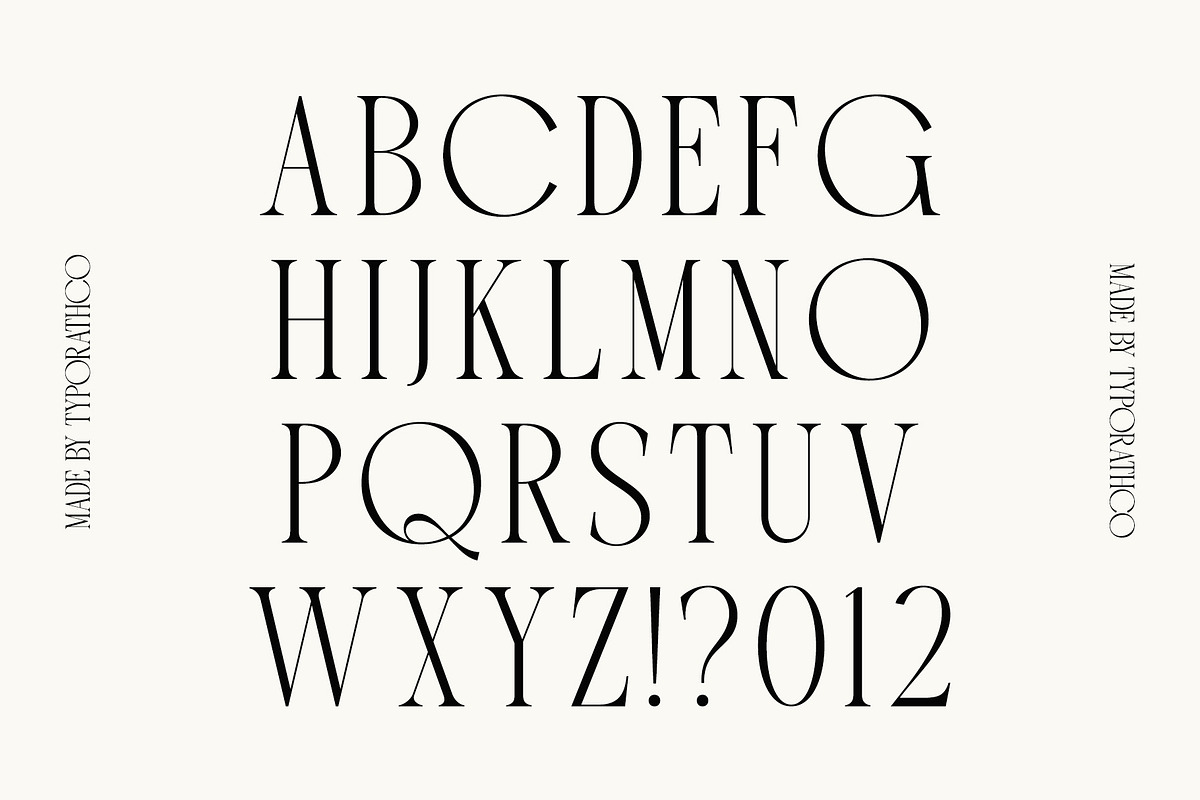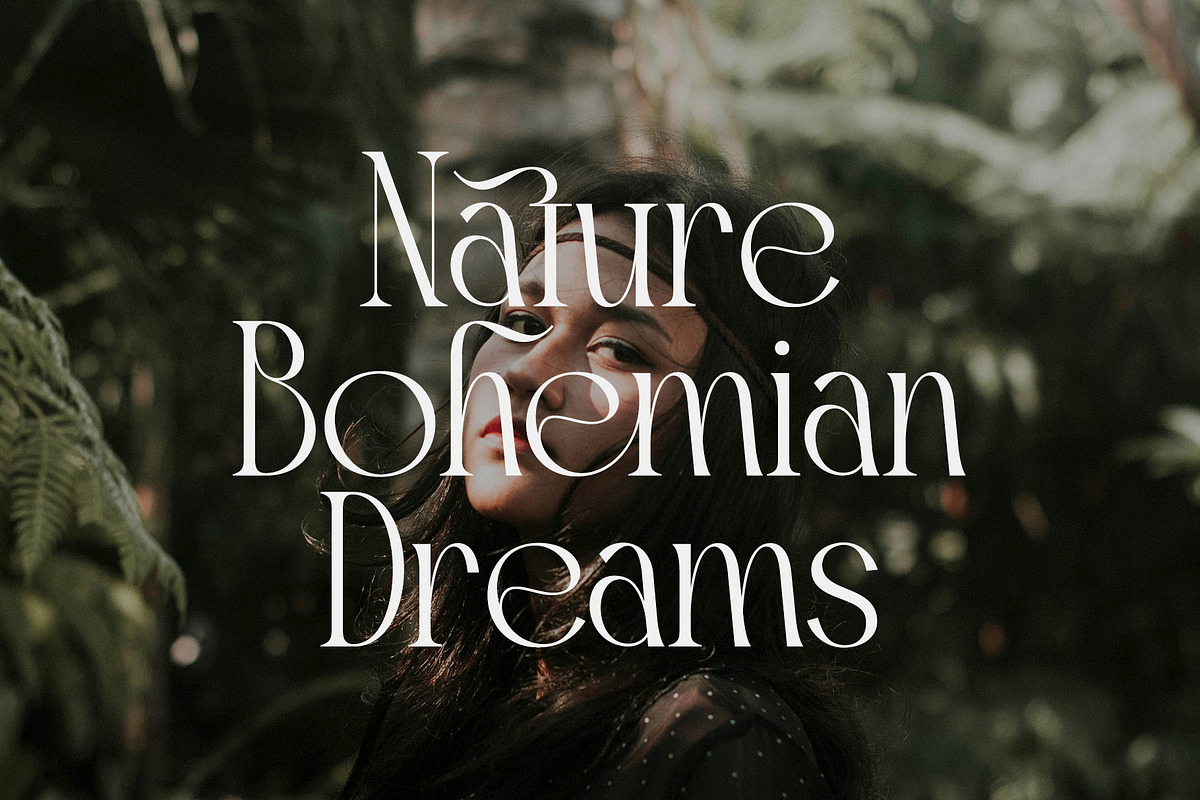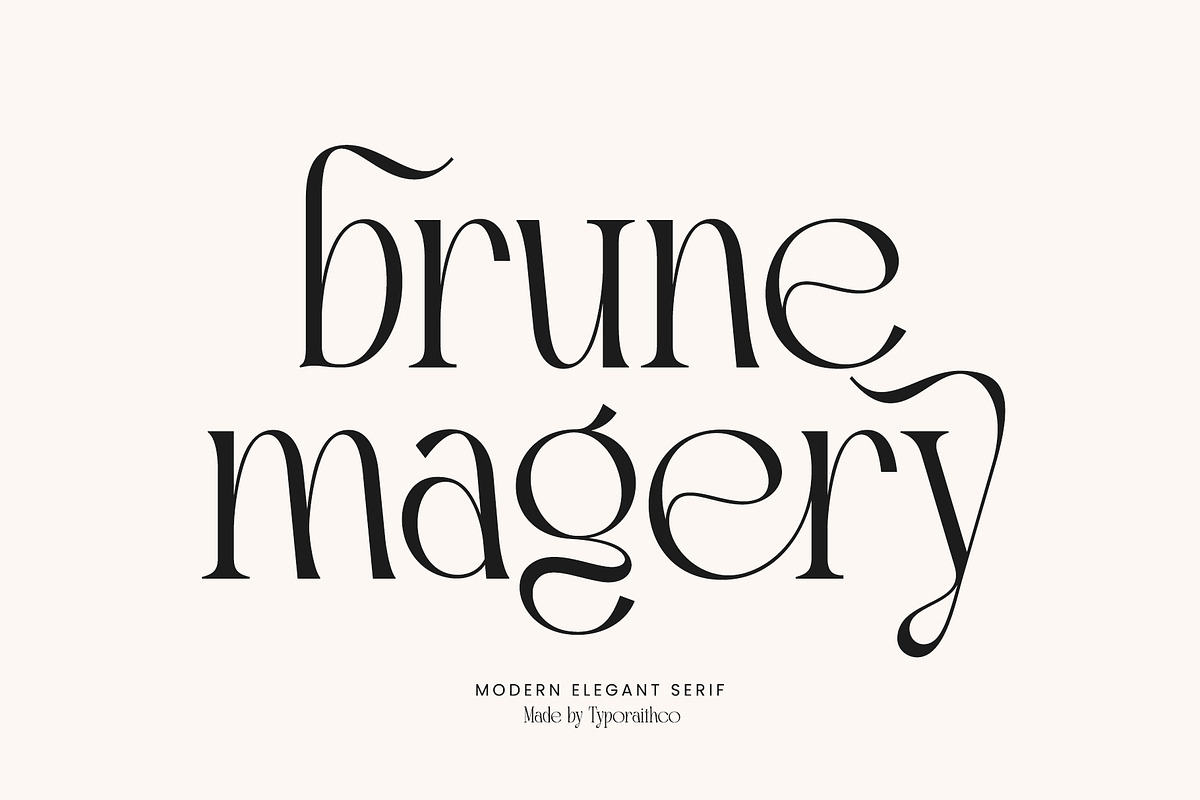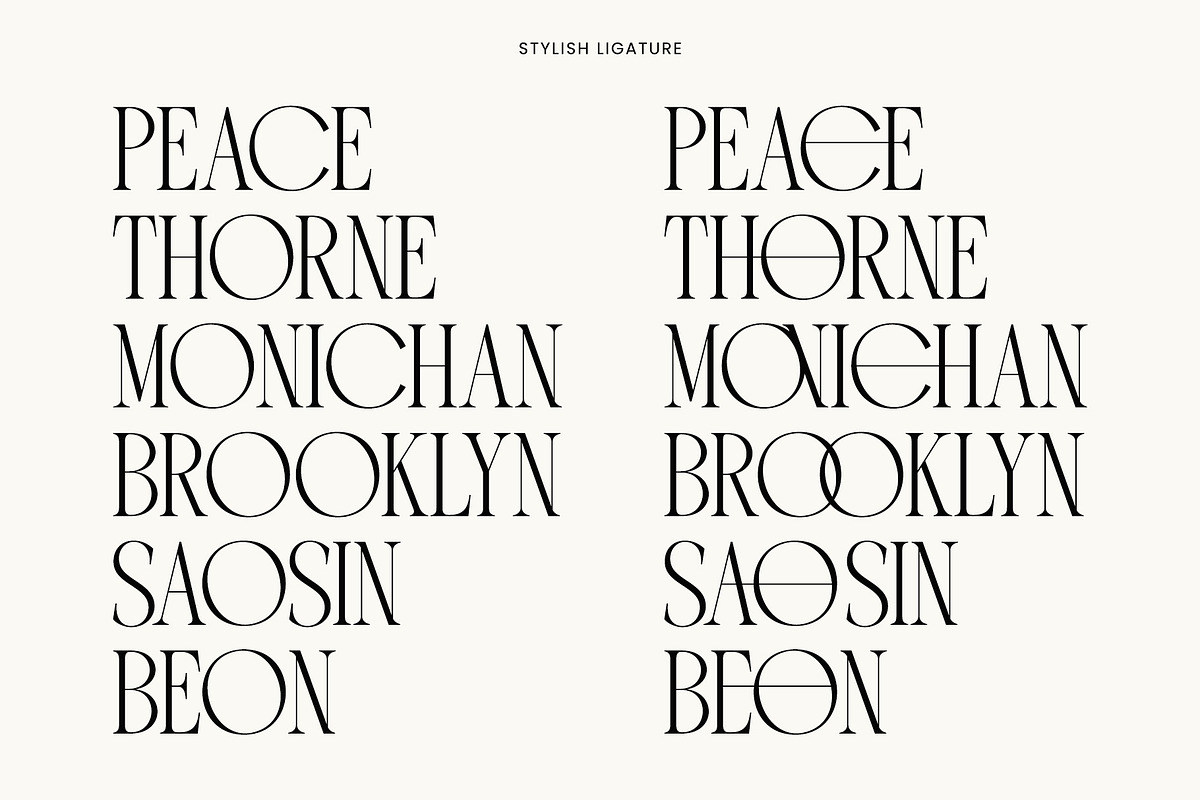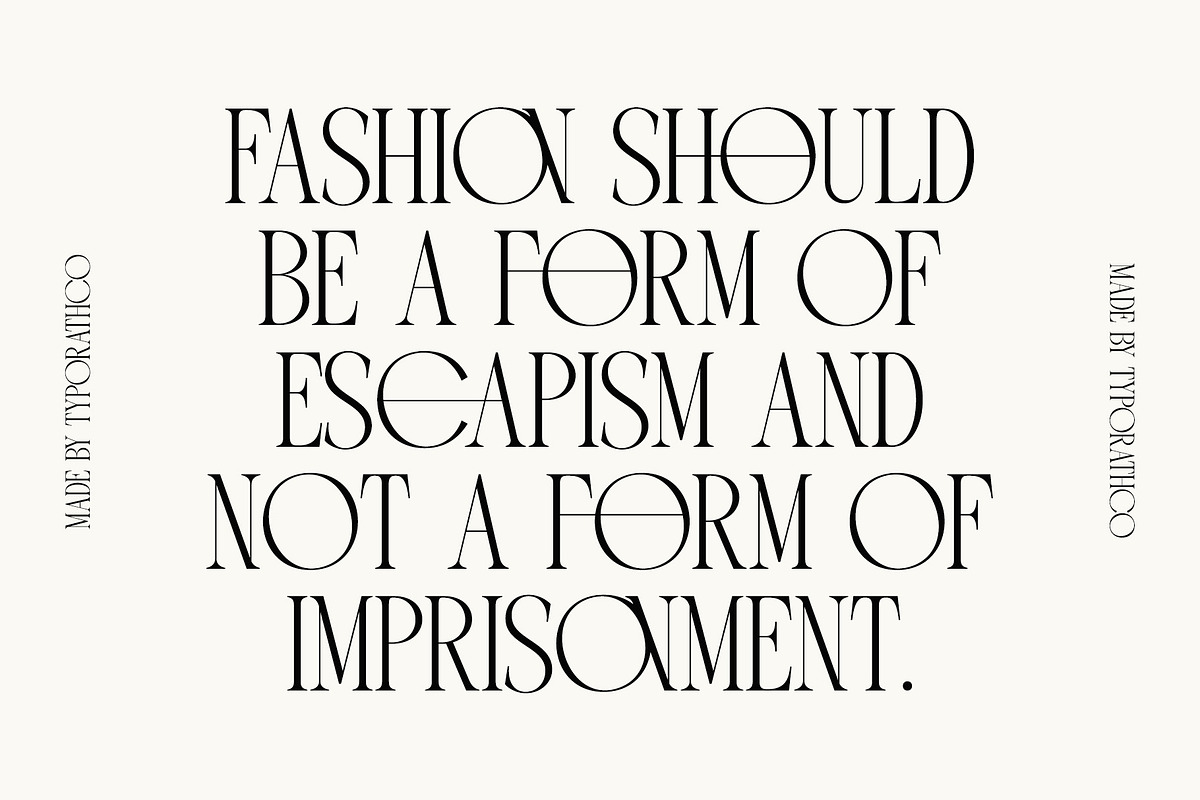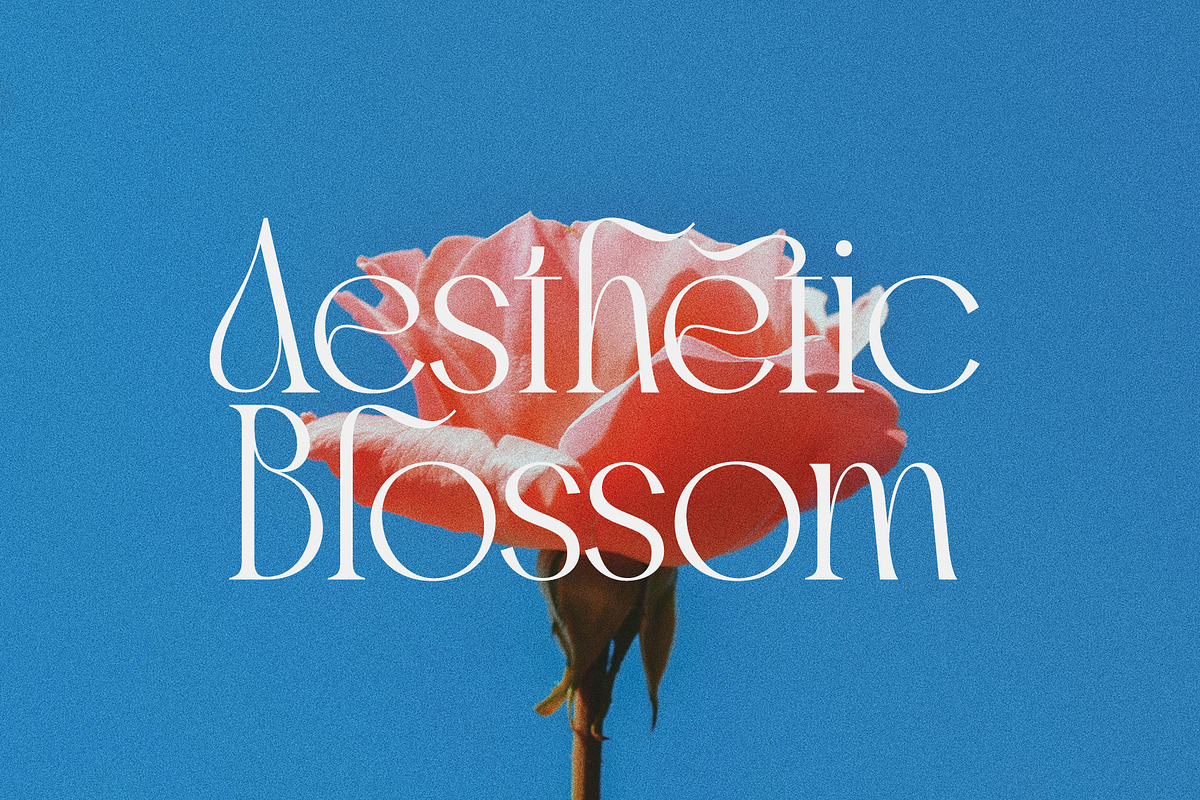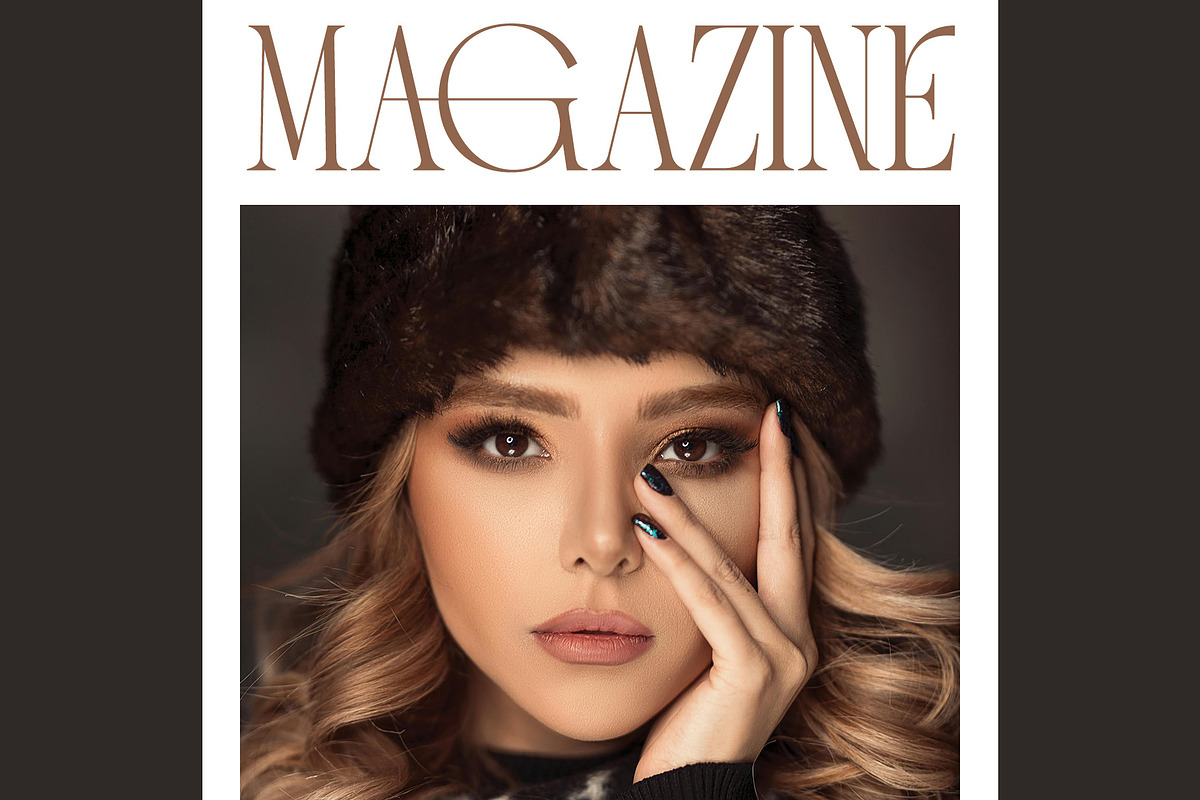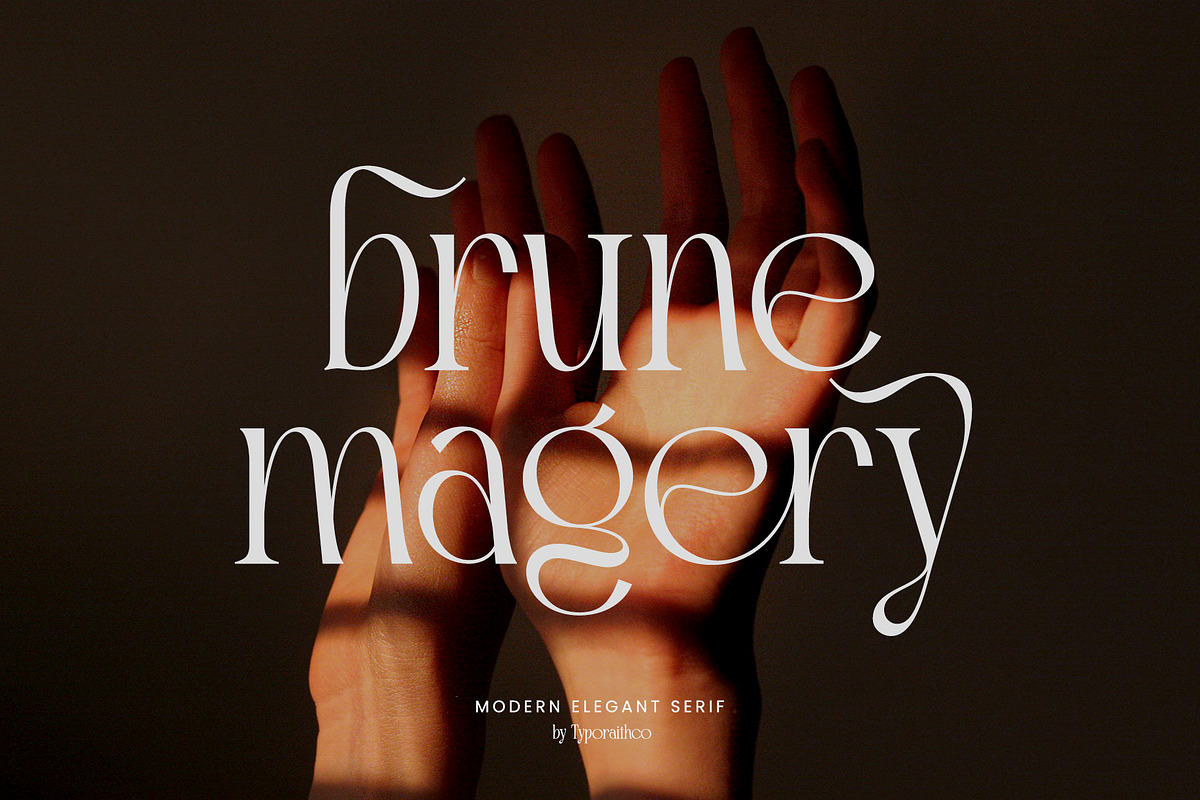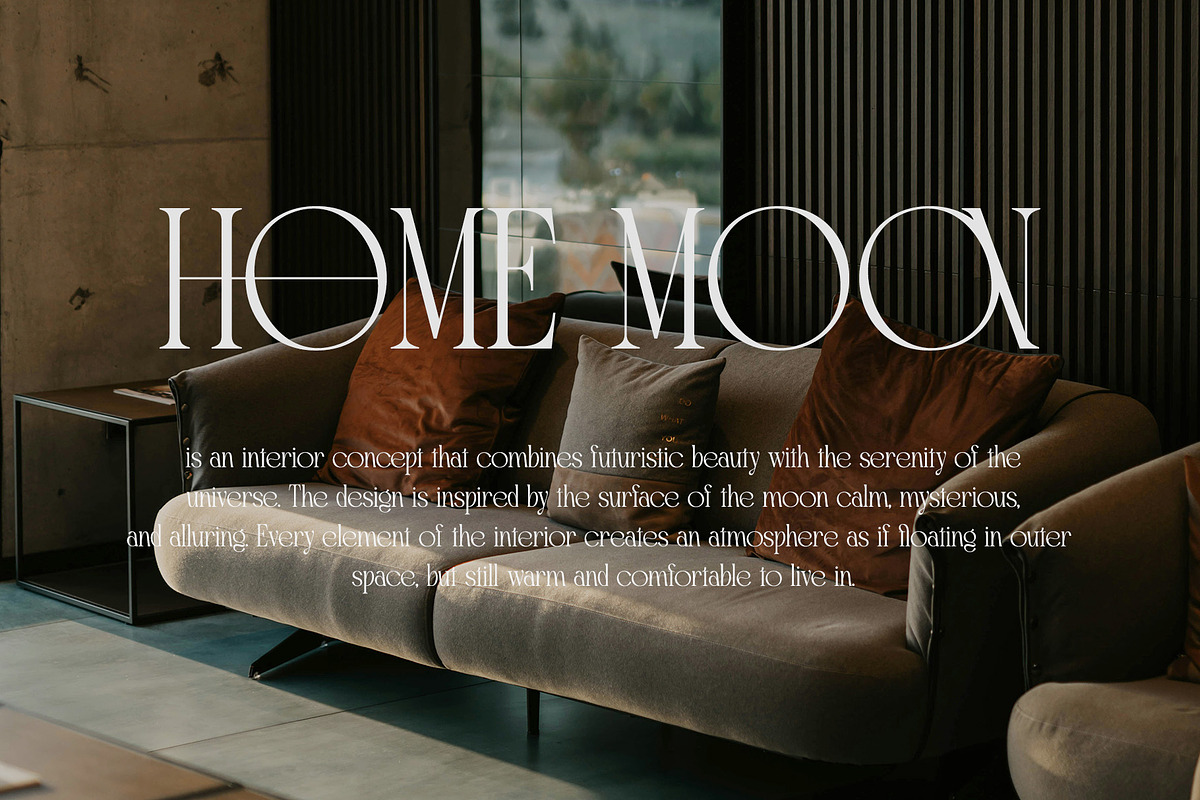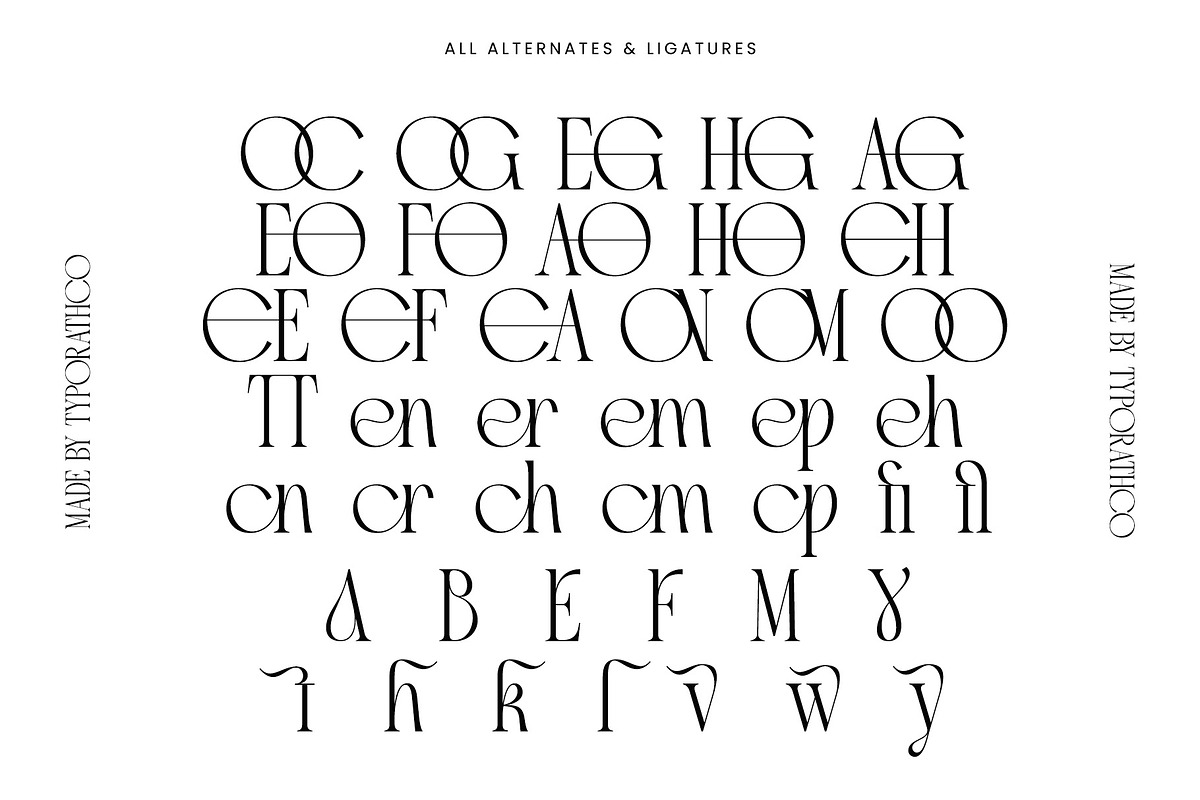
Brune Magery | Modern Elegant Serif
Brune Magery is a modern elegant serif typeface designed to combine classic sophistication with contemporary style. It's characterized by refined, high contrast strokes, gentle curves, and stylish serifs, making it suitable for luxury branding, editorial design, high-end packaging, and fashion-related projects.
Modern serif design: Clean and high-contrast letterforms that balance readability and elegance.
Elegant flair: Subtle details in terminals and ligatures add sophistication.
Versatile usage: Perfect for logos, headlines, invitations, and branding materials.
Alternates and ligatures: Many modern serif fonts like Brune Magery include stylistic alternates or custom ligatures for added aesthetic variety.
Uppercase & lowercase
Ligatures & alternates